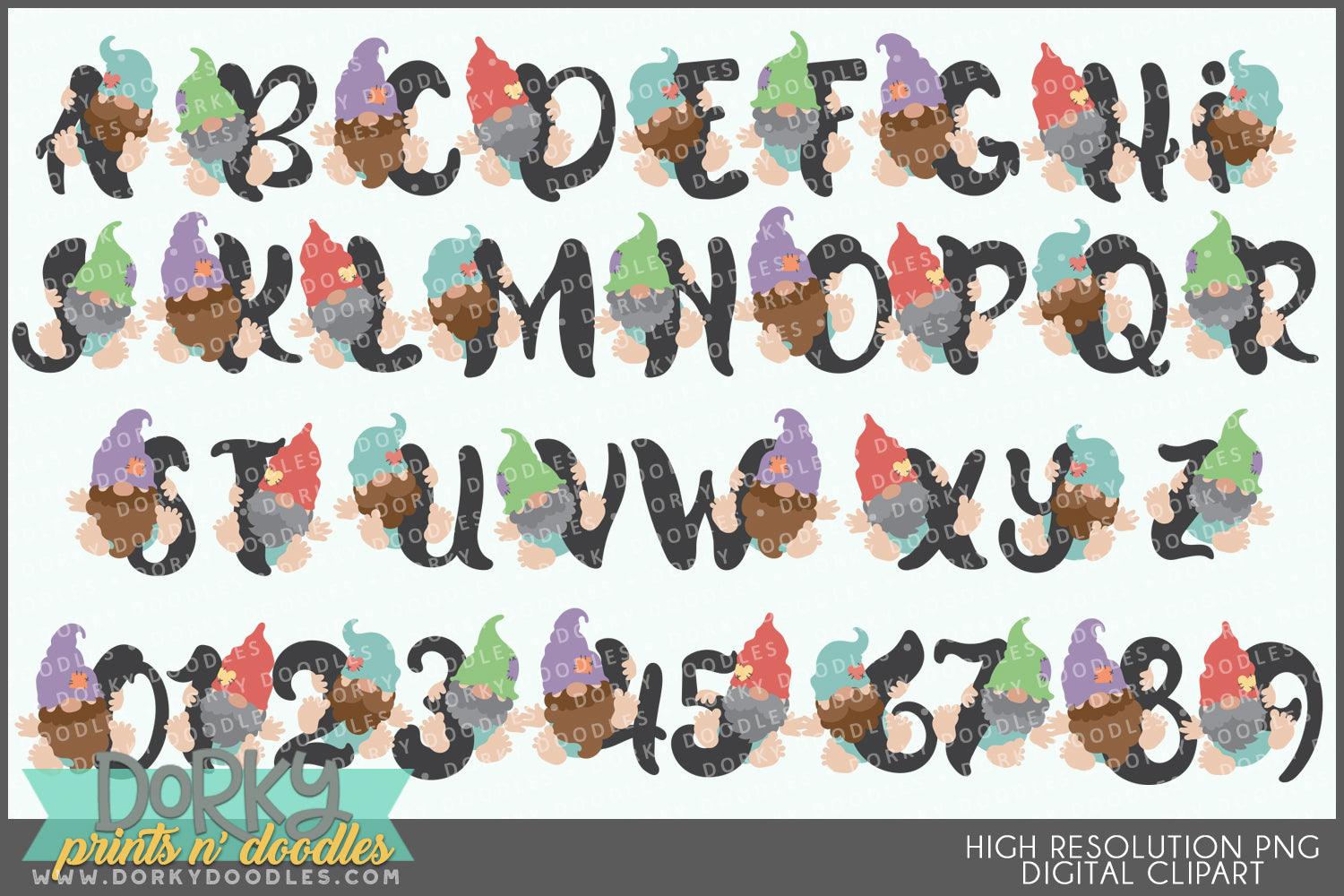
Cute Gnome Font and Symbols Clipart
These cute gnome alphabet clipart images look fabulous on cards, in scrapbooks, party invitations, planner stickers, sublimation projects, and decor! You will get 6 Digital Clip Art images in high resolution PNG format (they come as a ZIP file that you can download instantly once payment has cleared).
• the full alphabet and numbers 0-9 using cute gnomes